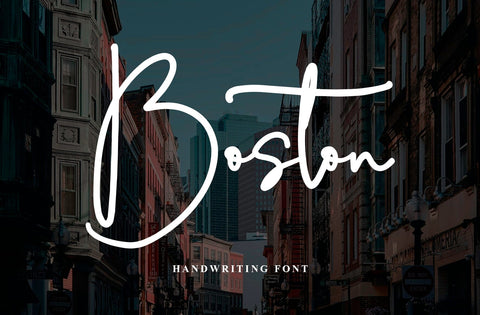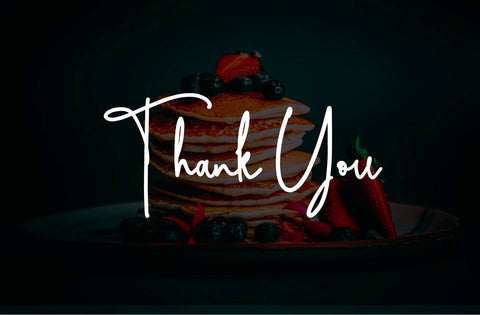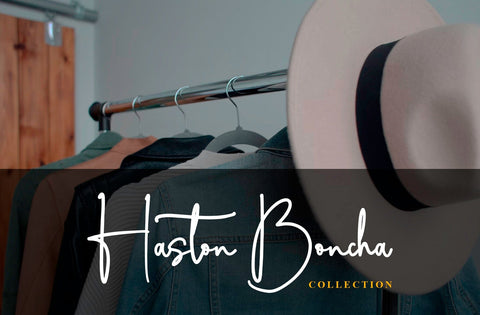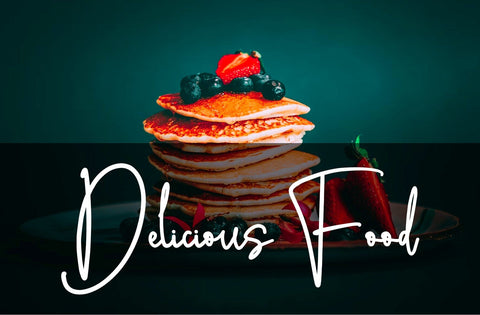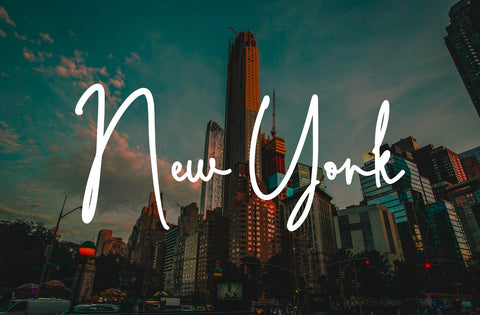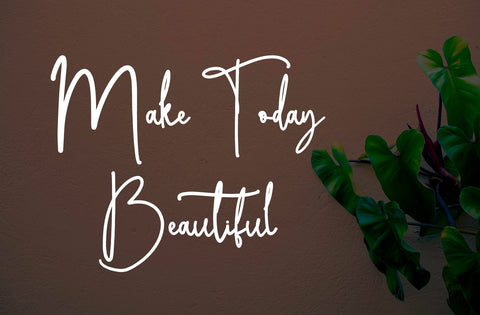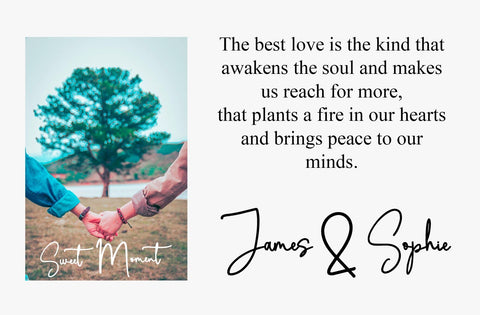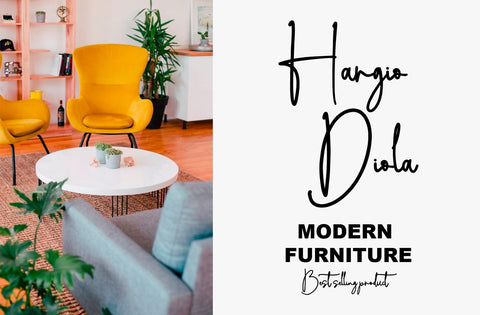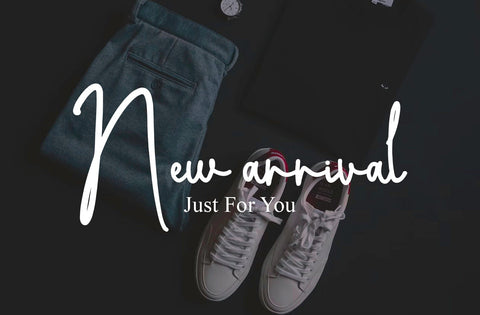
Boston Signature Font
Boston is handwriting collection font with natural movement make looks elegant, classy and beauty for your latest project.
Boston is perfect for branding projects, logo, wedding designs, social media posts, advertisements, product packaging, product designs, label, photography, watermark, invitation, stationery and any projects that need handwriting taste.
• Ligatures & Alternate
• Uppercase & Lowercase
• Numbers & Punctuation